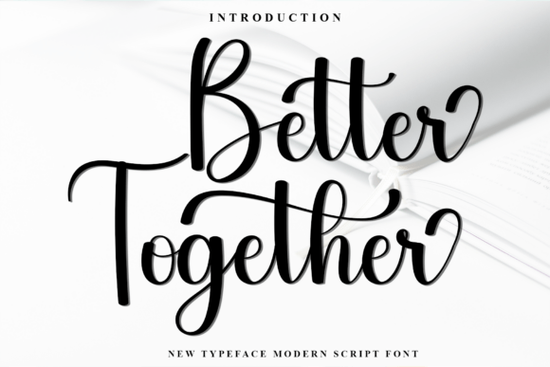
If you're looking for a script font that feels both personal and polished, the Better Together Font is worth your attention. Designed with soft curves and graceful connections, it brings a touch of romantic elegance to any project without feeling overly ornate or difficult to read.
Whether you’re creating wedding stationery, designing packaging for a boutique skincare line, or crafting heartfelt quote prints for your Etsy shop, this font strikes a balance between expressiveness and usability. Its natural flow mimics real handwriting, but with enough structure to remain legible even at smaller sizes.
What makes Better Together work for real-world projects?
Unlike some script fonts that prioritize style over function, Better Together includes thoughtful details that make it practical:
- Expressive ligatures that activate automatically in design software (like Adobe Illustrator or Canva Pro) for a more organic look.
- Clean spacing so letters don’t crowd each other, even in longer phrases.
- A consistent baseline, which helps when pairing it with sans-serif fonts for contrast.
For small business owners or print-on-demand sellers, these features mean fewer headaches during production and more professional-looking results straight out of the gate.
How does it compare to other modern scripts?
Script fonts come in many flavors. Some lean playful, others minimalist or vintage. Better Together sits comfortably in the “romantic but refined” category. If you’ve used fonts like Monday or Sister, you’ll notice Better Together has a slightly softer rhythm ideal for themes centered around love, partnership, or gentle luxury.
By contrast, something like American Cowboys leans into bold, rustic energy, while Alphabet Handwriting offers a more casual, everyday feel. And if minimalism is your goal, Minimalist Font strips things back to clean lines without flourish. Better Together fills a specific niche: warmth with sophistication.
Where should you use it (and where should you skip it)?
This font shines in contexts where emotion and aesthetics matter:
- Wedding invitations, save-the-dates, and thank-you cards
- Branding for bridal boutiques, florists, or candle makers
- Wall art featuring love quotes or anniversary messages
- Luxury product labels (think bath salts, perfume, or artisanal chocolates)
Avoid using it for body text, legal disclaimers, or anything requiring quick readability like signage or app interfaces. Script fonts, even well-designed ones, aren’t built for scanning. Stick to headlines, short phrases, or decorative accents.
Tips for pairing Better Together with other typefaces
Because of its fluid style, Better Together pairs best with simple, neutral companions. Try these combinations:
- A geometric sans-serif like Montserrat or Poppins for contrast without clashing.
- A light serif such as Lora or Playfair Display for classic elegance.
- Nothing else sometimes letting the script stand alone on a clean background creates the strongest impact.
When layering fonts, keep color consistent (soft neutrals like ivory, blush, or charcoal work beautifully) and avoid competing textures or shadows.
Is it beginner-friendly?